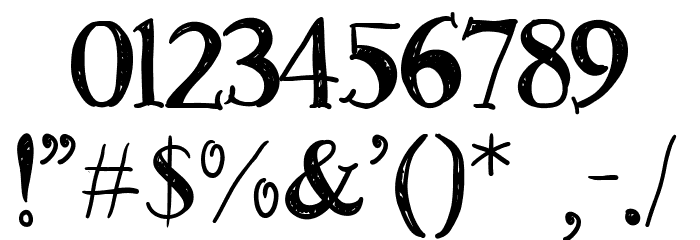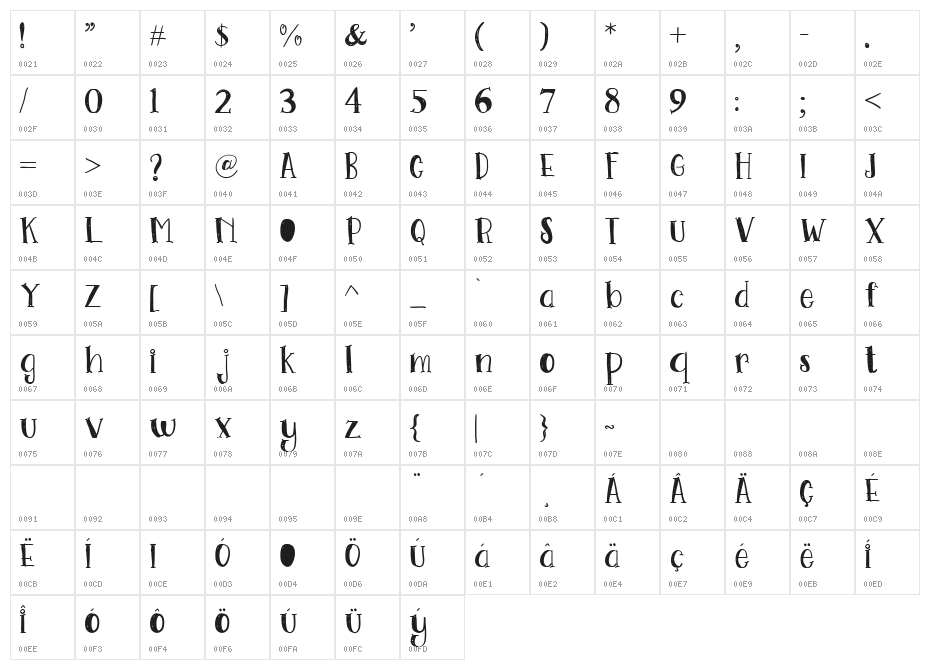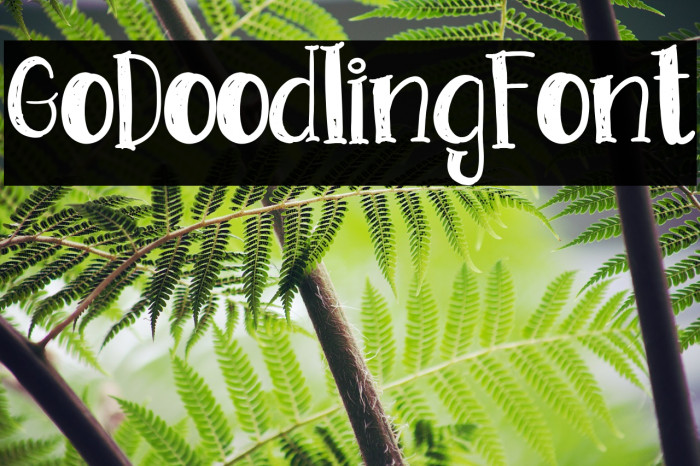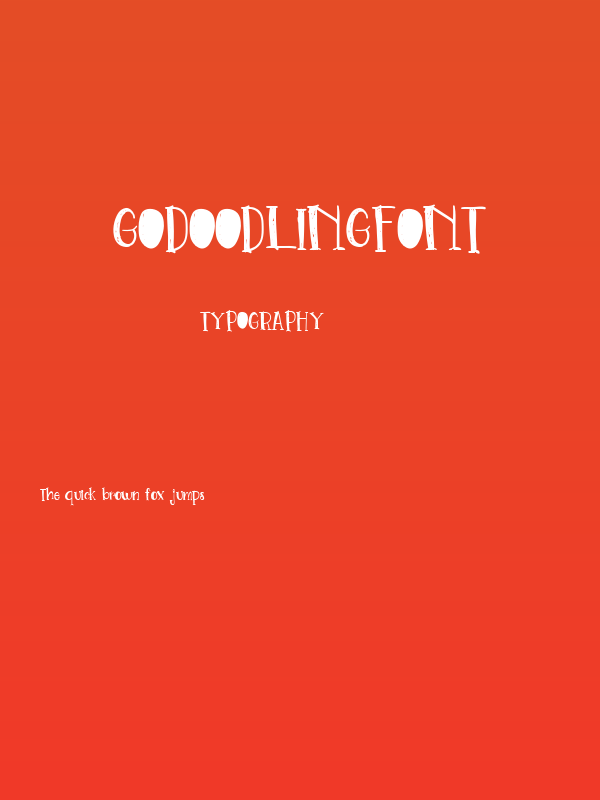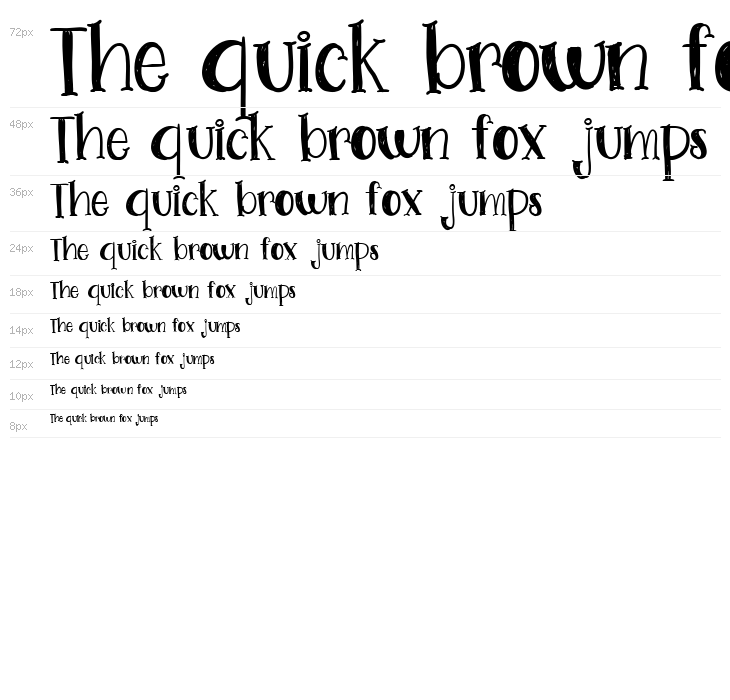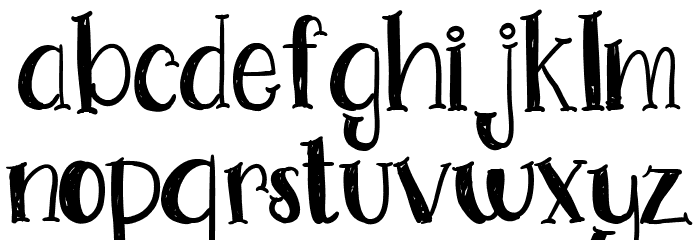
GoDoodlingFont Font
GoDoodlingFont Description
This font features a playful and whimsical design, characterized by its irregular and hand-drawn appearance. The letters have a quirky, uneven baseline and varying stroke widths, giving it a lively and dynamic feel. The uppercase and lowercase letters maintain a consistent style, with exaggerated serifs and a slightly tilted orientation, adding to its informal charm. The numerals and special characters follow the same playful aesthetic, making it suitable for creative and casual projects.
| Proposed Projects | Ideal for children's books, greeting cards, playful branding, and creative posters. |